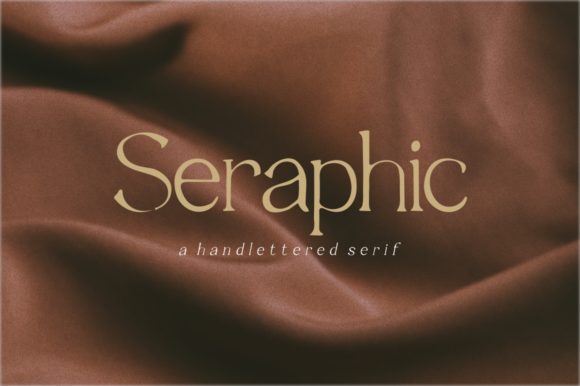
Step into the world of Seraphic, a font that captivates with its delicate, sweeping lines and mesmerizing elegance. With its roots firmly planted in the serif family, Seraphic is a master of grace and sophistication, evoking a sense of timeless beauty in every letter it adorns.
Say goodbye to ordinary typography and embrace the extraordinary with Seraphic. This font is more than just a collection of characters; it's a gateway to artistic expression, allowing you to transform your designs into captivating works of art. Whether you're crafting wedding invitations, thank-you notes, or greeting cards, Seraphic will effortlessly elevate your words, adding a touch of enchantment to every occasion.
Seraphic's versatility extends far beyond traditional applications. Its delicate strokes add a touch of magic to logos, branding, and social media posts, making it the perfect choice for businesses and creatives seeking to leave a lasting impression. Its thin, elegant letters dance across the page, drawing the eye and creating a sense of effortless allure.
Immerse yourself in the enchanting world of Seraphic, where creativity knows no bounds. Let your imagination soar as you explore endless possibilities, transforming your designs into masterpieces that captivate and inspire. Unleash the power of Seraphic and watch as your words take on a life of their own, leaving a trail of beauty and elegance wherever they roam.